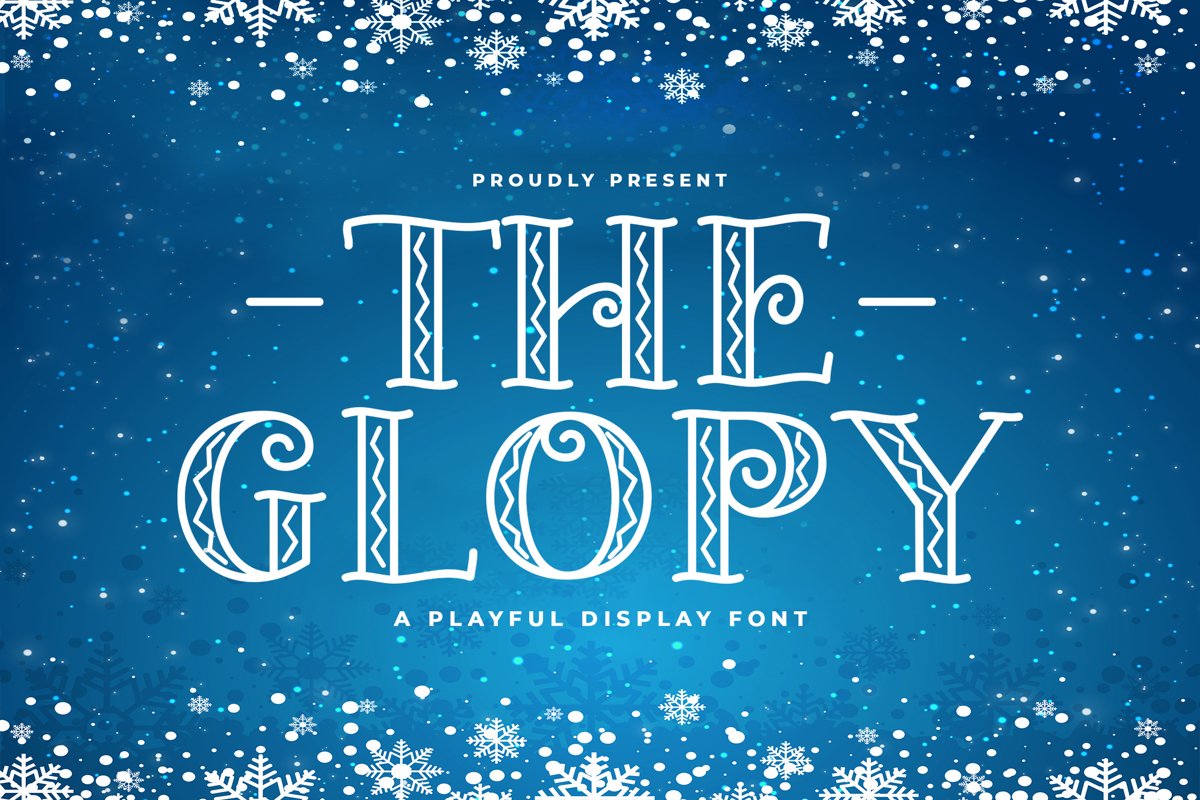
The Glopy is a playful display font. Perfect for display, poster, quotes, crafting needs, florist needs, wedding needs, business card, signature, packaging, merchandise, branding, logo, logotype, header, tittle, and many more.